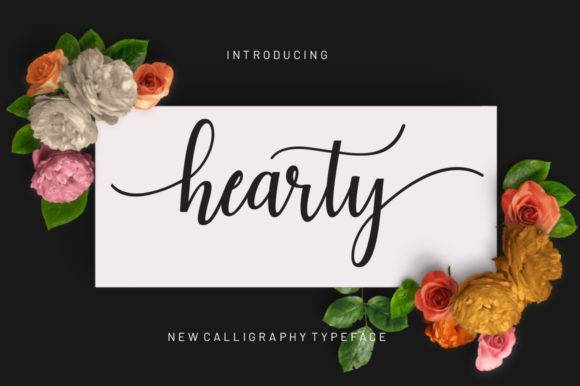
Hearty Font for Headlines, Posters and Branding Projects
The Hearty Font is a handcrafted display typeface that combines whimsical character with bold structure, making it ideal for attention-grabbing titles and branding visuals.
Its stylish curves and clean readability make it a strong choice for posters, packaging, social media graphics, and marketing assets that need a memorable font identity.
- Graphic designers, brand developers, poster artists, digital marketers, typographic hobbyists
- Logos, posters, packaging, social posts, website banners, merchandise
- Bold and playful, perfect for high-visibility uses
- Consistent letter spacing and balance
Q: Can I use this font in a logo?
A: Yes — the bold and distinctive shapes make it perfect for logos and visual identities.
Q: Is this font suitable for body text?
A: Hearty is best used for headlines and large text settings, not long-form or small body text.
| Playful Display Typeface | Perfect for headlines, posters, and standout branding |
| Bold and Readable | Grabs attention across all media types |